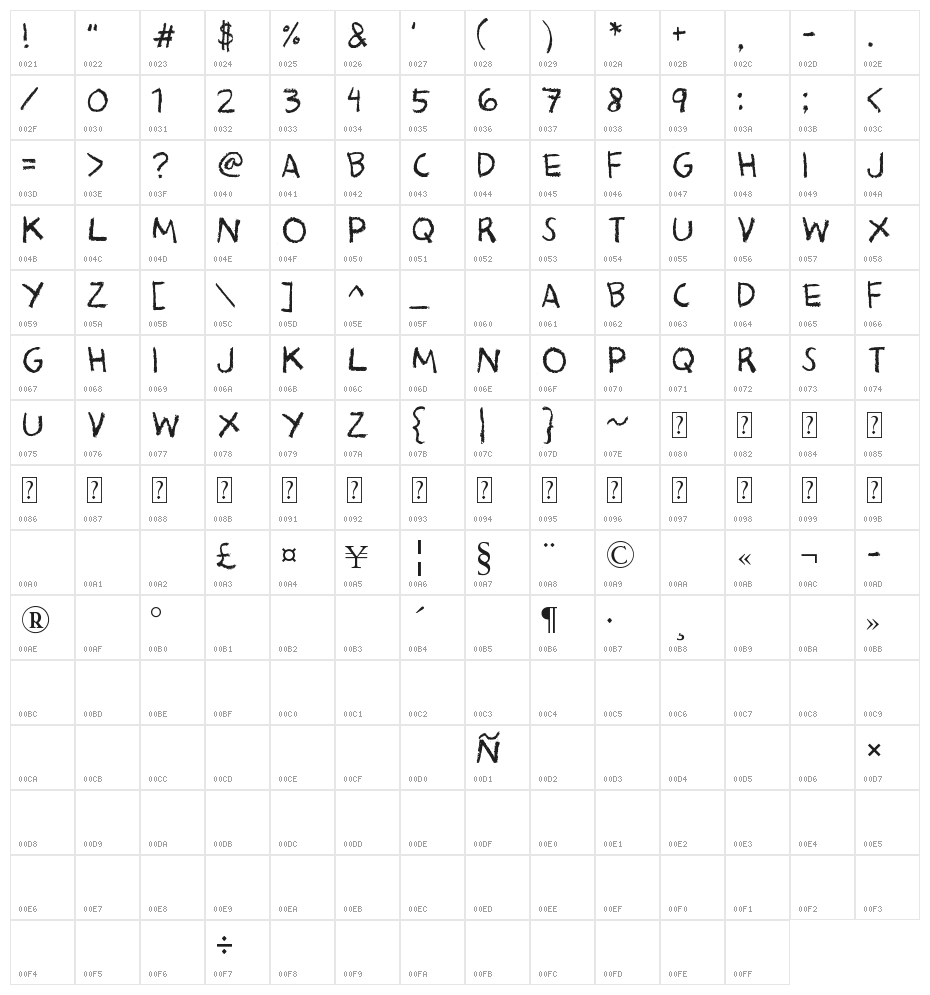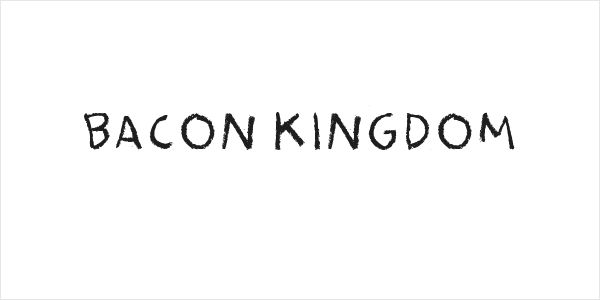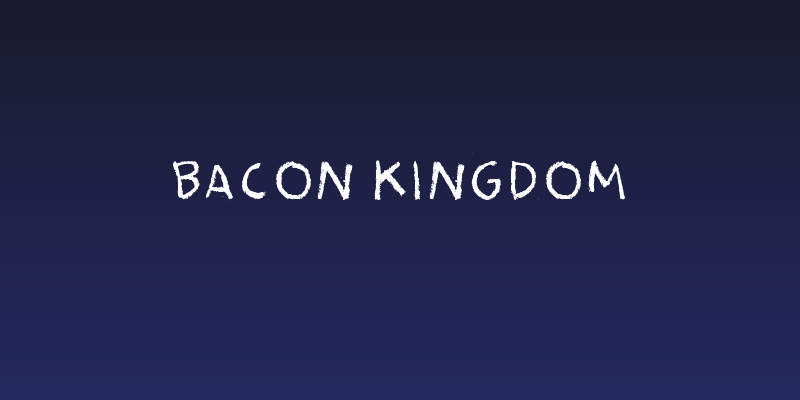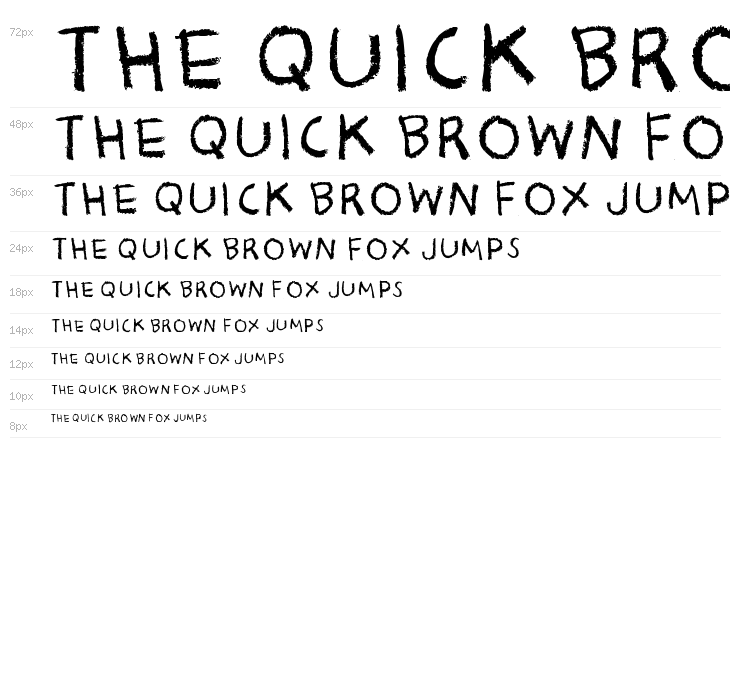
Bacon Kingdom Font
Bacon Kingdom Description
This font features a hand-drawn, textured appearance that gives it a rustic and organic feel. The characters are slightly irregular, adding to its charm and uniqueness. The uppercase and lowercase letters maintain a consistent style, with a playful and informal vibe. The numbers and special characters follow the same aesthetic, making the font versatile for various creative projects. Its rough edges and uneven strokes suggest a handcrafted quality, perfect for designs that require a personal touch.
| Use Case | Logos, Posters, Greeting Cards |
| Proposed Projects | Ideal for greeting cards, posters, branding projects, and any design that benefits from a personal, handcrafted touch. |